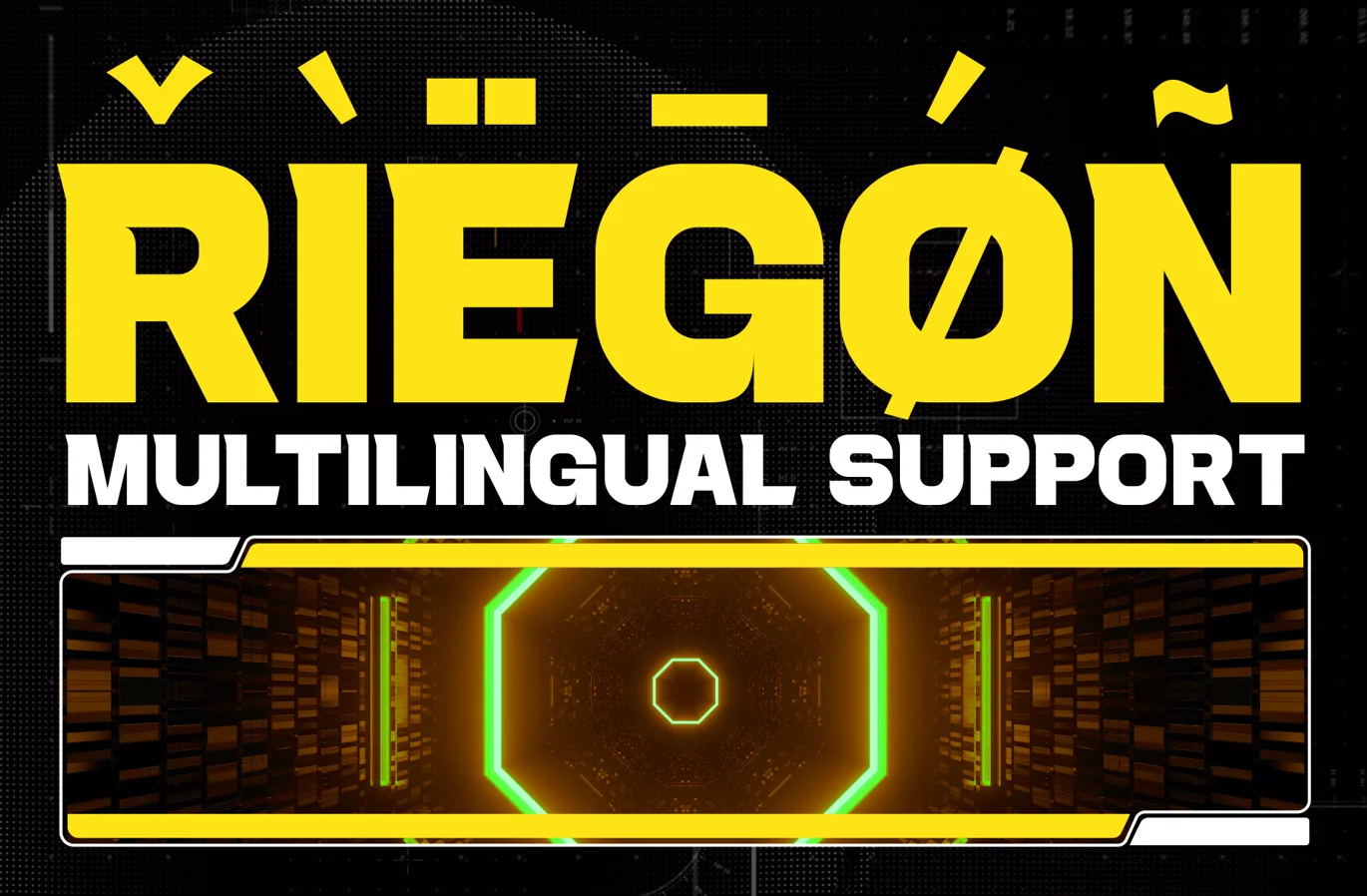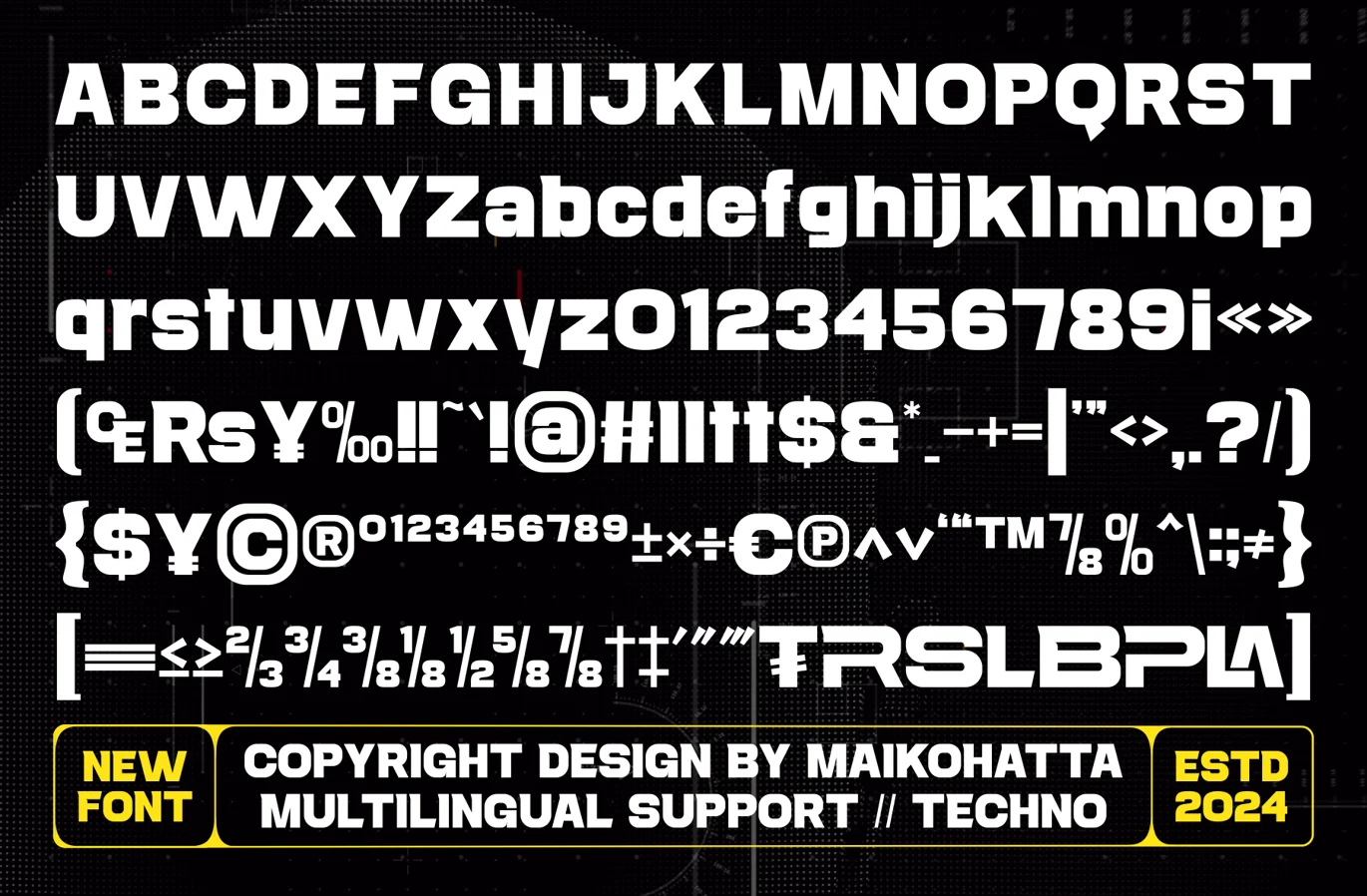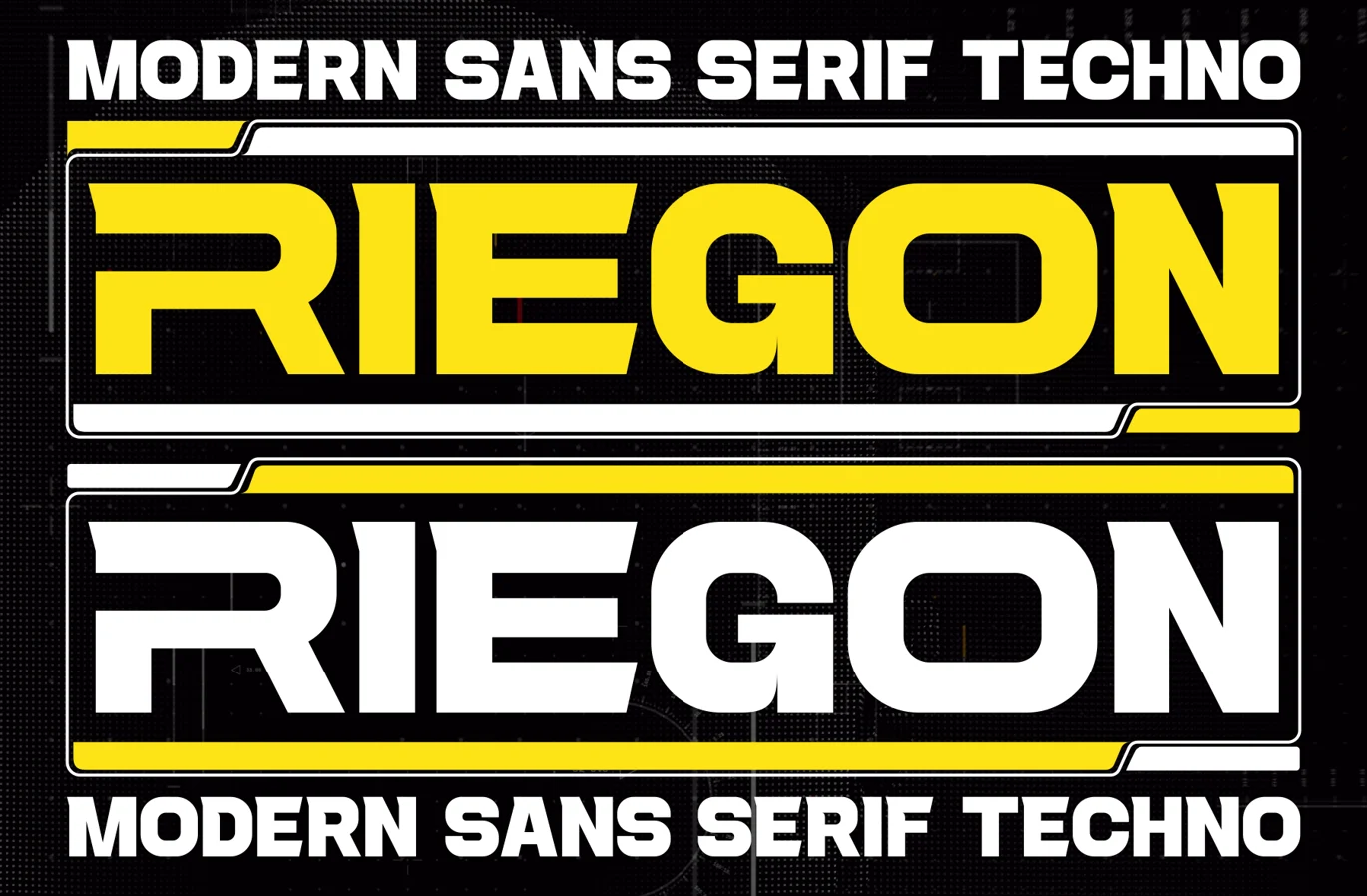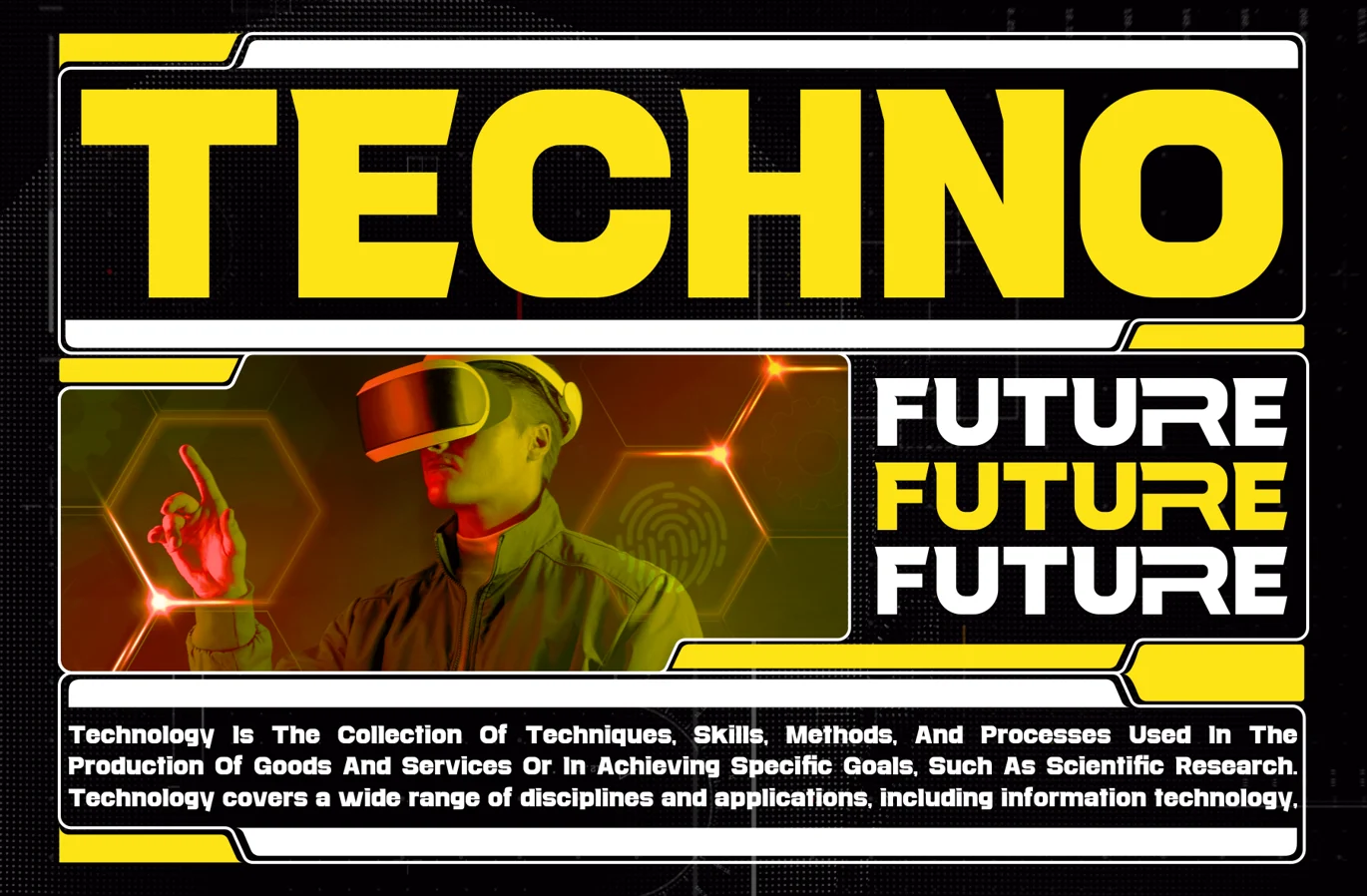
Introducing our new product Riegon - Modern Sans Techno
Riegon Modern Sans Techno is a bold and authentic display font. The font is suitable for any branding project like logo, Template Design, esport, and many more. outstanding in a wide range of contexts.